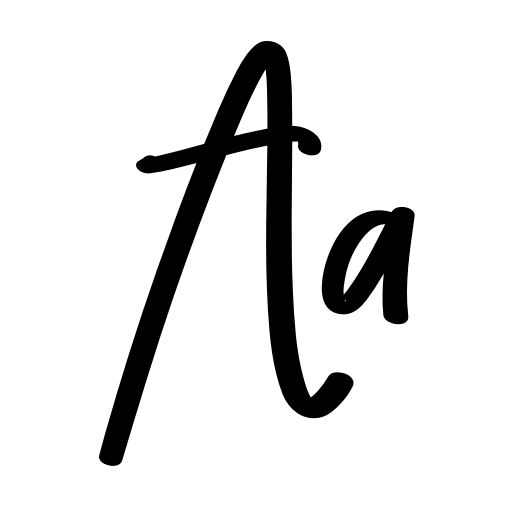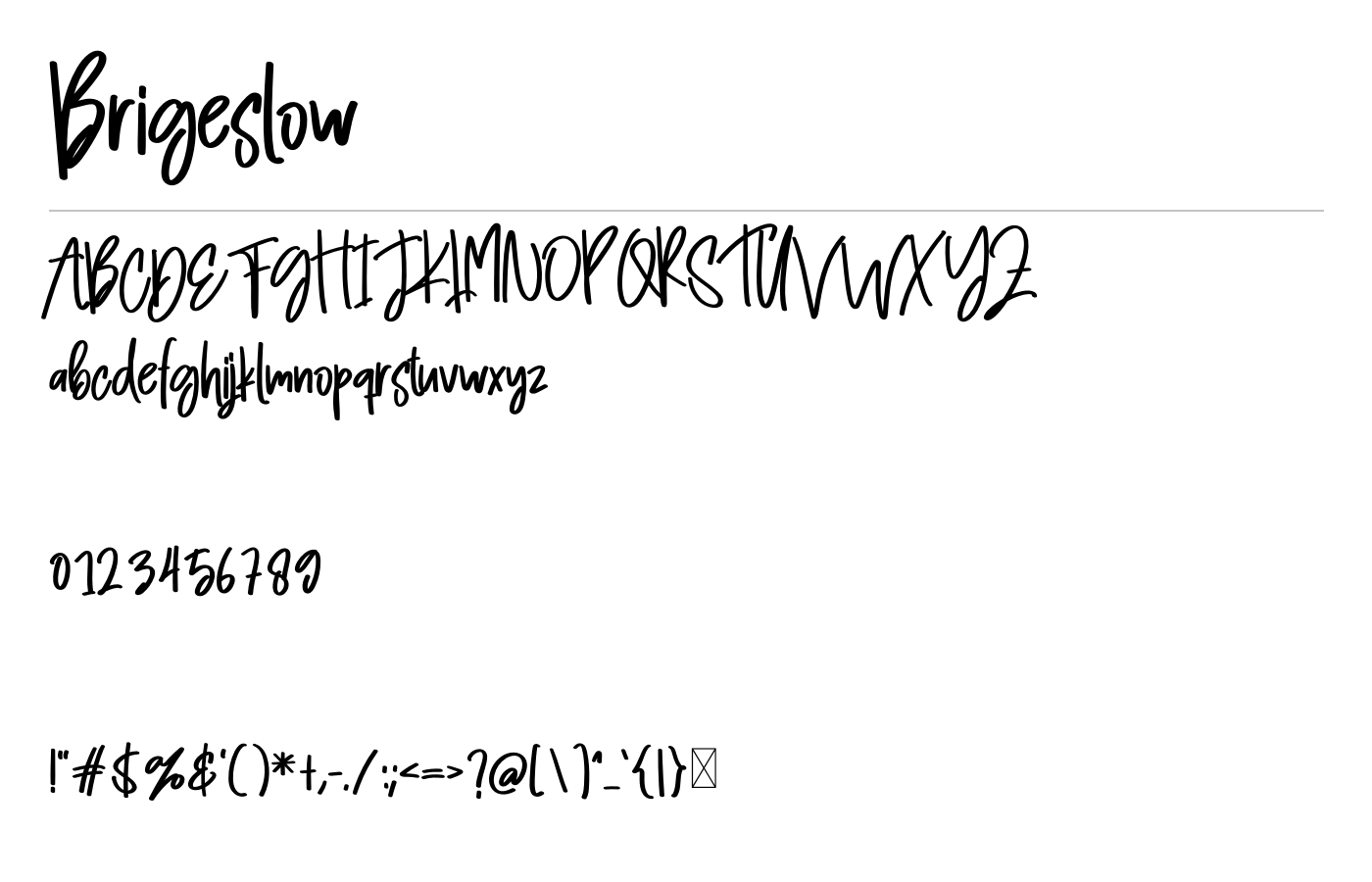
Brigeslow is a playful and casual handwritten font with a lively, irregular style that gives it a personal, approachable feel. Its tall, narrow letterforms and energetic strokes make it perfect for creative projects, social media graphics, or informal branding that wants to convey friendliness and originality. With its charming imperfections and distinctive character, Brigeslow works best for headlines, logos, and designs that need a spirited, handwritten touch.
Brigeslow Font
About Brigeslow Font